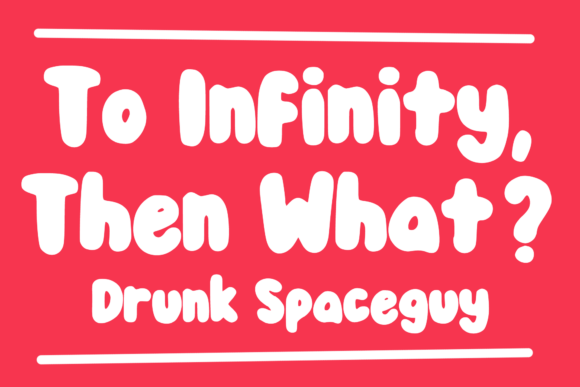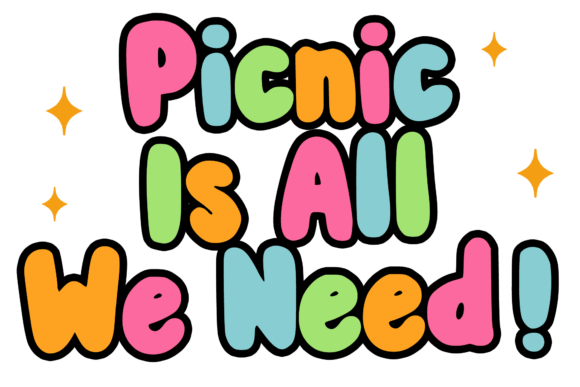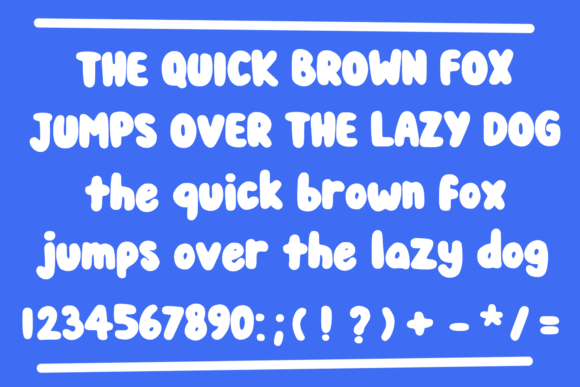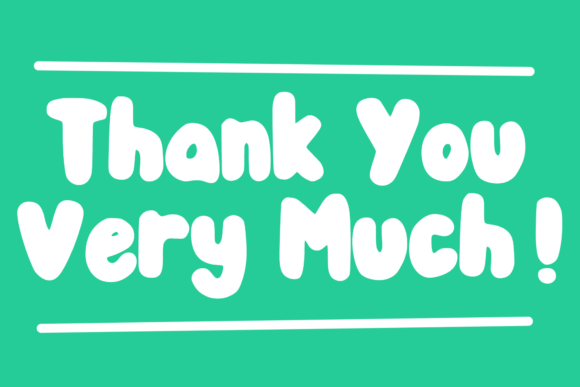
You know that moment when you’re brainstorming a new project and the perfect font just clicks? For designers, it’s all about finding the right tool to bring your ideas to life. Whether you’re working on a t-shirt design, creating stickers, or crafting a social media post, the right font can make all the difference.
That’s where the Bold Rounded Font comes in – a fun, rounded bold cartoon display font that’s perfect for adding a playful touch to your projects. Its versatility and bold design make it a valuable asset for designers who want to add a little extra flair to their work. With the Bold Rounded Font, you can create eye-catching designs that stand out from the crowd and leave a lasting impression.
Bold Rounded Font Key Features
- Font Family: The Bold Rounded Font is a custom-designed sans-serif font, optimized for readability and aesthetic appeal.
- Unique Characteristics: The Bold Rounded Font features a distinctive rounded edge on the letters, giving it a friendly and approachable feel, while maintaining a level of sophistication and professionalism.
- Font Weight: Available in three font weights: Light, Regular, and Bold, allowing for flexibility in design and layout.
- Language Support: Supports a wide range of languages, including Latin, Cyrillic, and Greek alphabets, making it suitable for international applications.
Bold Rounded Font Review
I recently had the chance to work with the Bold Rounded Font, and here’s my honest take on it.
- Great for headings and titles: The font’s bold weight and rounded edges make it perfect for grabbing attention and setting the tone for your content.
- Easy to read: Despite its bold appearance, the font is surprisingly easy to read, even at smaller font sizes.
- Classic feel: The Bold Rounded Font has a timeless, classic feel to it that works well for both modern and traditional designs.
- Limited flexibility: The font’s bold weight can make it difficult to use in situations where a more subtle approach is needed.
- Not ideal for body text: While the font is great for headings, it’s not the best choice for body text, as it can be overwhelming.
- May not work well with certain color schemes: The font’s bold appearance can clash with certain color schemes, so be sure to test it out before committing to a design.
Overall, the Bold Rounded Font is a solid choice for headings and titles, but it’s not the best fit for every design situation. With a little care and consideration, it can add a nice touch to your projects.
The Bold Rounded Font is ideal for creating a friendly and approachable tone in your designs. It’s commonly used in:
- Branding and logo designs
- Infographics and visual aids
- Blog post titles and headings